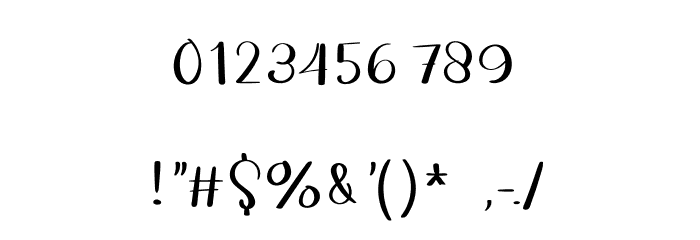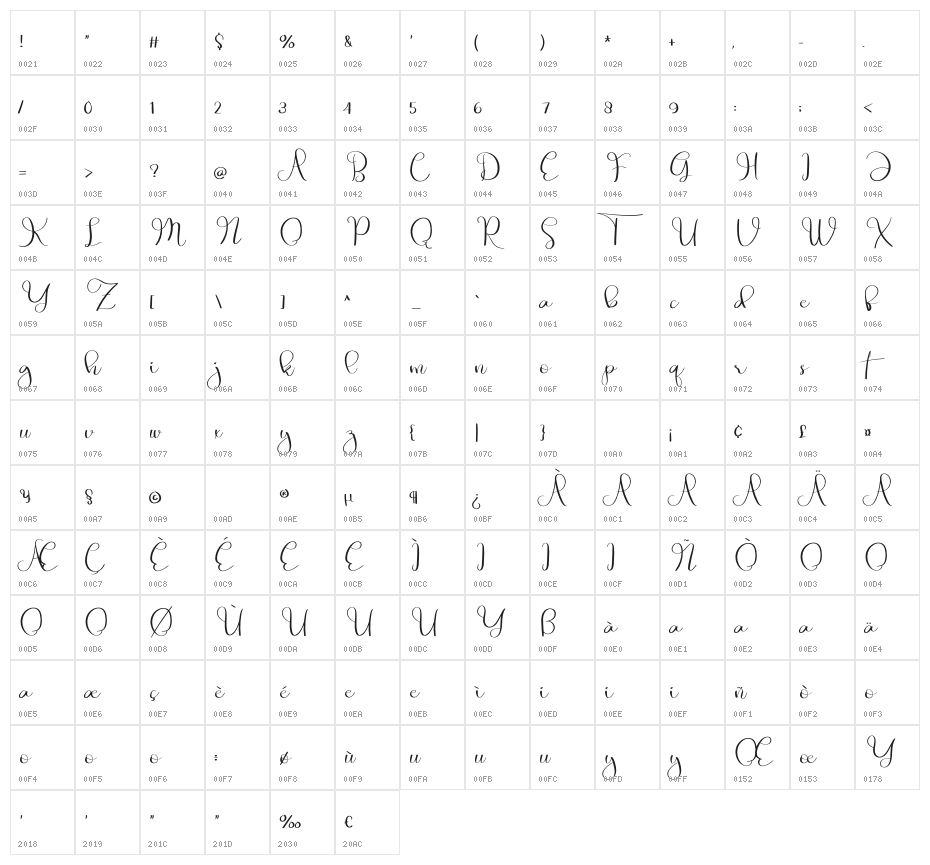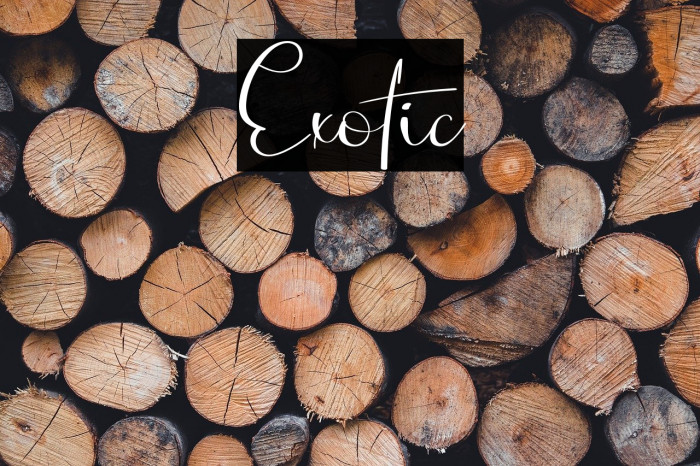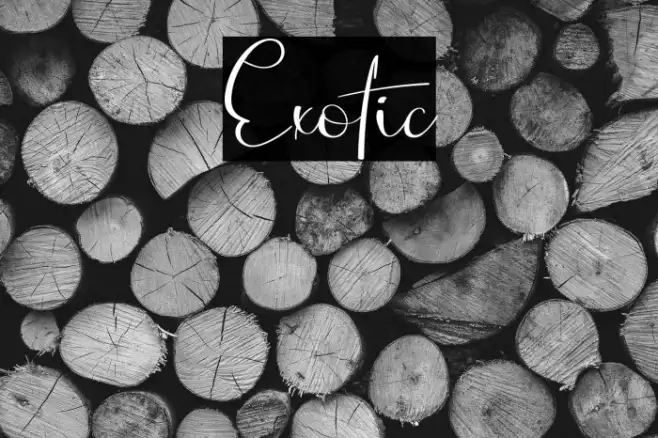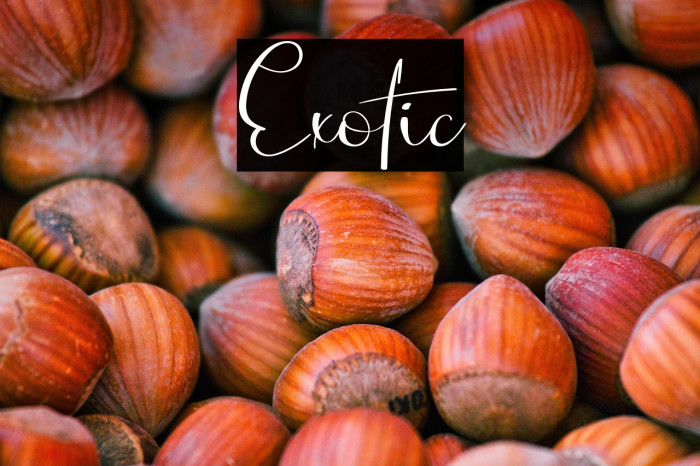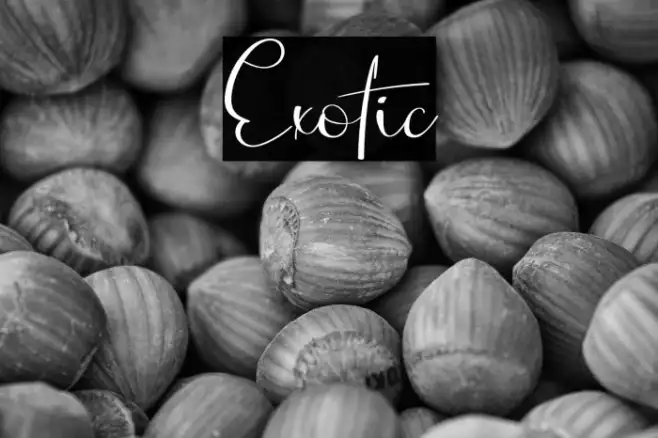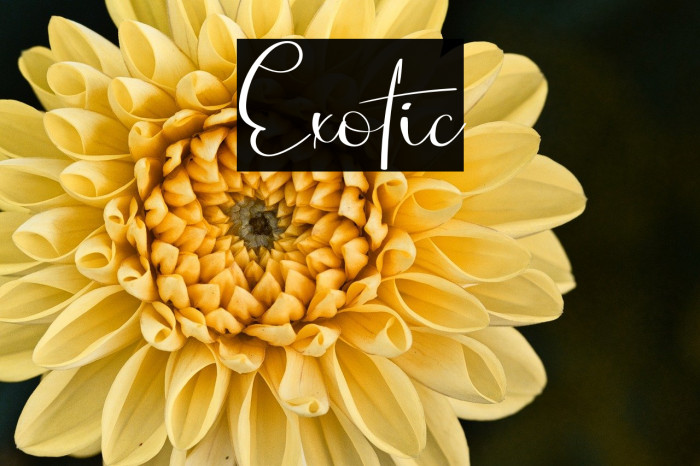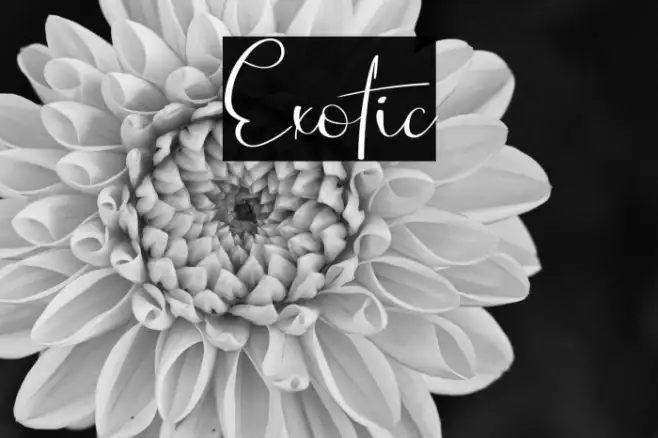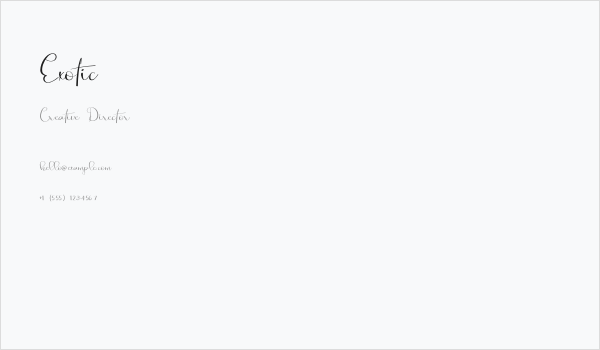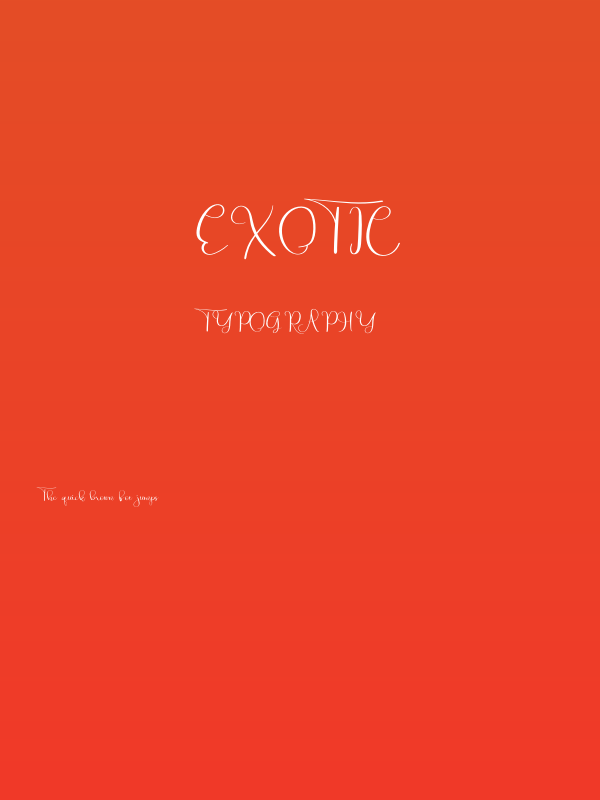
Exotic Font
Exotic Description
This font exudes a sense of elegance and fluidity, characterized by its script style that mimics the flow of cursive handwriting. The uppercase letters are ornate, with sweeping curves and loops that add a decorative flair, while the lowercase letters maintain a consistent, flowing style that enhances readability. The numbers and special characters are designed to complement the overall aesthetic, maintaining the same graceful curves and loops. This font is ideal for projects that require a touch of sophistication and style, such as wedding invitations, branding, and high-end product packaging.
| Proposed Projects | Ideal for wedding invitations, branding, and luxury product packaging. |